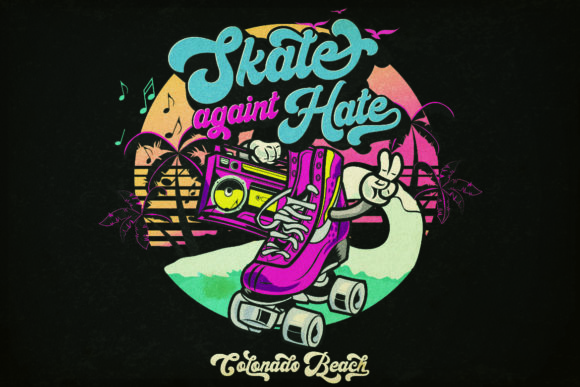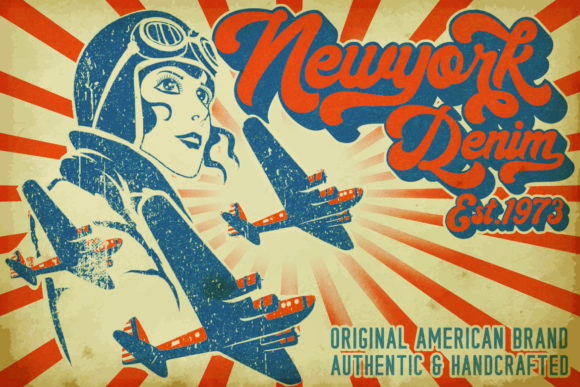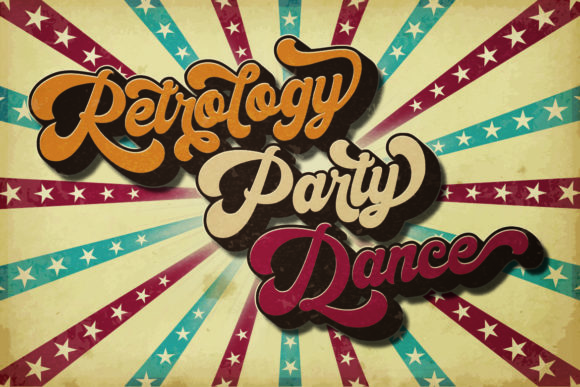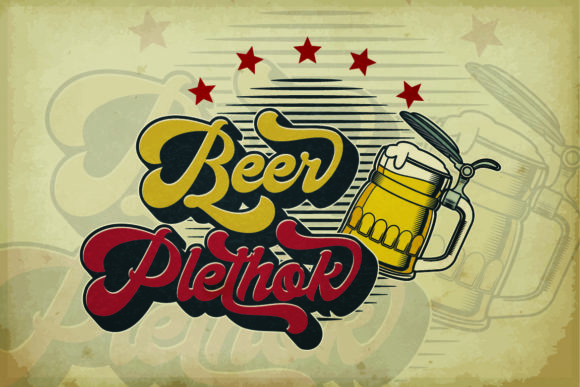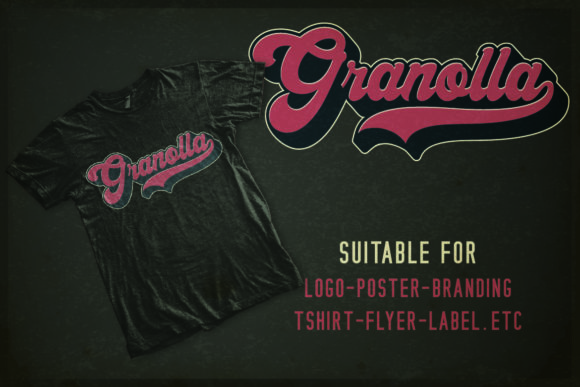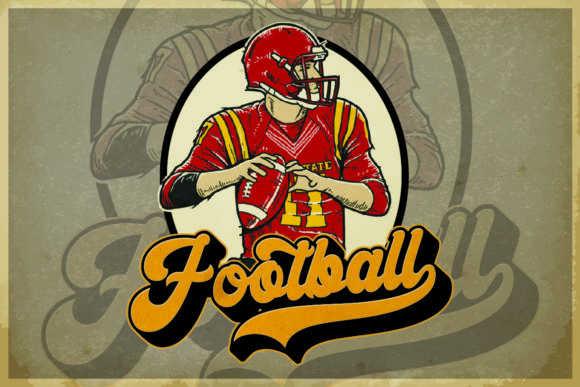
Halycoon Script Font: Elevate Your Designs with a Bold and Fun Handwritten Style
In the world of typography, a font can make or break a design project. With the right font, you can convey the perfect tone, evoke emotions, and capture the attention of your audience. If you’re looking for a font that can add a touch of personality and whimsy to your designs, look no further than the Halycoon Script Font. In this article, we’ll explore the unique features of Halycoon and how it can help you create standout designs that leave a lasting impression.
What is Halycoon Script Font?
Halycoon is a strikingly bold and fun handwritten font with a unique feel. Its distinctive style is perfect for designers and crafters who want to add a personal touch to their projects. Whether you’re working on a branding campaign, a DIY craft, or a digital design, Halycoon is the perfect choice. With its bold and playful vibe, this font is sure to turn any design project into a true standout.
Key Features of Halycoon Script Font
- Bold and Fun: Halycoon is a font that makes a statement. Its bold and fun style is perfect for designs that need a playful touch.
- Unique Feel: Unlike other script fonts, Halycoon has a distinctive feel that’s both modern and elegant.
- Handwritten Style: The font’s handwritten style gives it a personal touch that’s perfect for designs that need a human feel.
- Versatile: Halycoon is a versatile font that can be used for a wide range of design projects, from branding and advertising to crafting and DIY projects.
How to Use Halycoon Script Font in Your Designs
- Pair it with a neutral font: Pair Halycoon with a neutral font to create a striking contrast that adds visual interest to your design.
- Use it as a headline font: Halycoon’s bold style makes it perfect for headlines and titles.
- Add a personal touch: Use Halycoon to add a personal touch to your designs, such as in quotes, testimonials, or captions.
Benefits of Using Halycoon Script Font
- Stand out from the crowd: Halycoon’s unique style ensures that your designs will stand out from the crowd.
- Convey personality: Halycoon’s playful and bold style is perfect for conveying personality and whimsy in your designs.
- Easy to read: Despite its bold style, Halycoon is easy to read, making it perfect for designs that need to communicate a message.
Who Can Benefit from Using Halycoon Script Font?
- Graphic designers: Halycoon is perfect for graphic designers who want to add a personal touch to their designs.
- Crafters: Crafters who want to add a unique touch to their DIY projects will love Halycoon.
- Branding experts: Halycoon is a great choice for branding experts who want to create a bold and memorable brand identity.
In conclusion, Halycoon Script Font is a bold and fun handwritten font that can elevate any design project. With its unique feel and versatile style, it’s perfect for designers and crafters who want to add a personal touch to their designs. Whether you’re working on a branding campaign, a DIY craft, or a digital design, Halycoon is the perfect choice. So why wait? Try Halycoon today and turn your design project into a true standout!